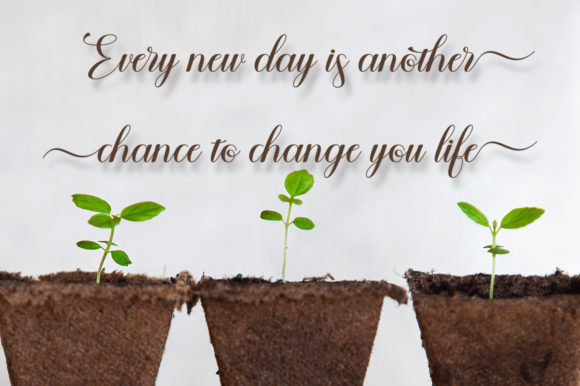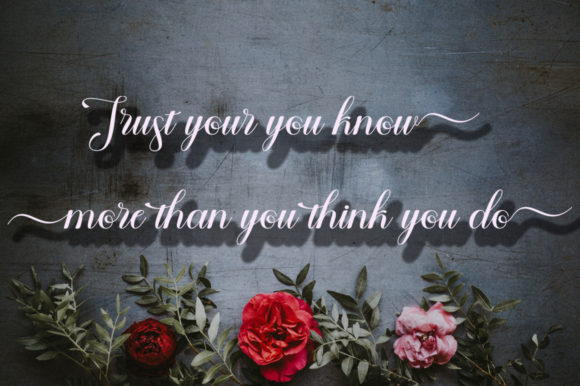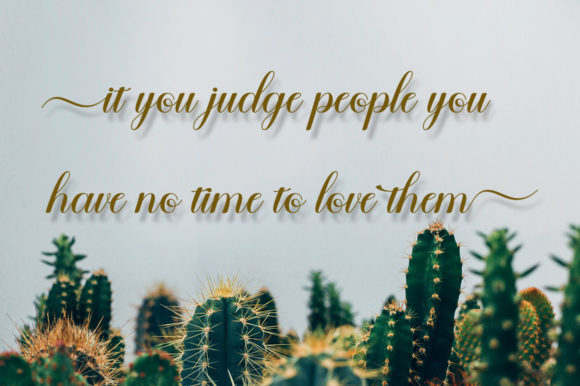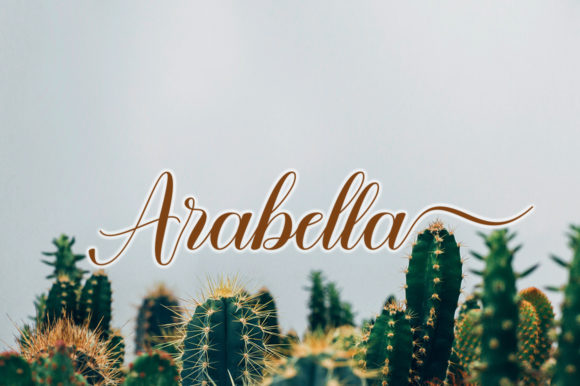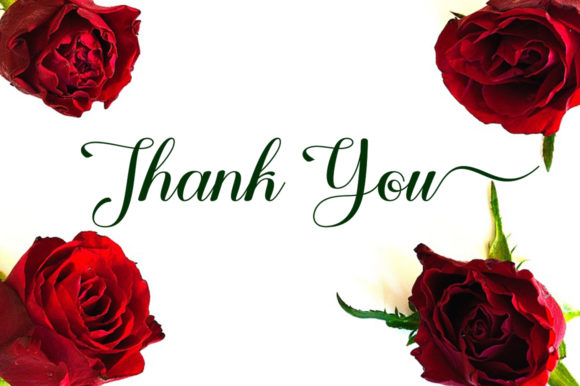
Introducing Elora Font: Elevate Your Designs with Elegance and Flair
Are you on the hunt for a font that exudes sophistication, elegance, and a touch of whimsy? Look no further than Elora Font, a delicate and flowing handwritten font that’s sure to breathe life into your creative projects. With its beautiful, well-balanced characters, Elora Font is an incredibly versatile addition to any designer’s toolkit.
The Characteristics of Elora Font
Elora Font is a true showstopper, boasting a range of characteristics that set it apart from other fonts. Its delicate, cursive strokes and elegant lettering make it perfect for designs that require a touch of sophistication. The font’s flowing lines and curves create a sense of movement and fluidity, adding a dynamic touch to any project.
One of the standout features of Elora Font is its exceptional balance and harmony. Each character is carefully crafted to work in perfect tandem with the others, creating a seamless and visually appealing effect. This balance makes Elora Font an excellent choice for a wide range of designs, from wedding invitations and branding materials to blog headers and social media graphics.
Why Designers and Crafters Love Elora Font
So, what makes Elora Font a favorite among designers and crafters? For starters, its versatility is unmatched. Whether you’re working on a bold and playful project or a more subdued and elegant design, Elora Font adapts effortlessly to any style or theme.
Another reason Elora Font is a top choice is its ability to add a touch of personality to any design. Its unique, handwritten feel creates a sense of warmth and approachability, making it perfect for brands and designers looking to connect with their audience on a more personal level.
Elora Font is also incredibly easy to use, making it accessible to designers of all skill levels. Whether you’re a seasoned pro or just starting out, you can easily incorporate Elora Font into your workflow and start creating stunning designs in no time.
How to Use Elora Font in Your Designs
- Pair it with bold fonts: Elora Font pairs beautifully with bold, sans-serif fonts. Try combining it with a font like Arial Black or Helvetica Bold for a striking contrast.
- Use it for headings: Elora Font is perfect for headings and titles. Its elegant, cursive strokes make it a great choice for blog posts, articles, and other written content.
- Add it to your branding materials: Elora Font is an excellent choice for branding materials like business cards, letterheads, and packaging. Its unique, handwritten feel adds a touch of personality to any brand.
In conclusion, Elora Font is a delicate, elegant, and flowing handwritten font that’s sure to elevate your designs to the next level. With its beautiful, well-balanced characters and exceptional versatility, Elora Font is an excellent addition to any designer’s toolkit.
Key Features of Elora Font
- Delicate and elegant: Elora Font boasts a delicate, cursive strokes and elegant lettering.
- Flowing and handwritten: Elora Font has a flowing, handwritten feel that’s perfect for designs that require a touch of personality.
- Well-balanced characters: Each character in Elora Font is carefully crafted to work in perfect tandem with the others.
- Versatile: Elora Font is an incredibly versatile font that adapts effortlessly to any style or theme.